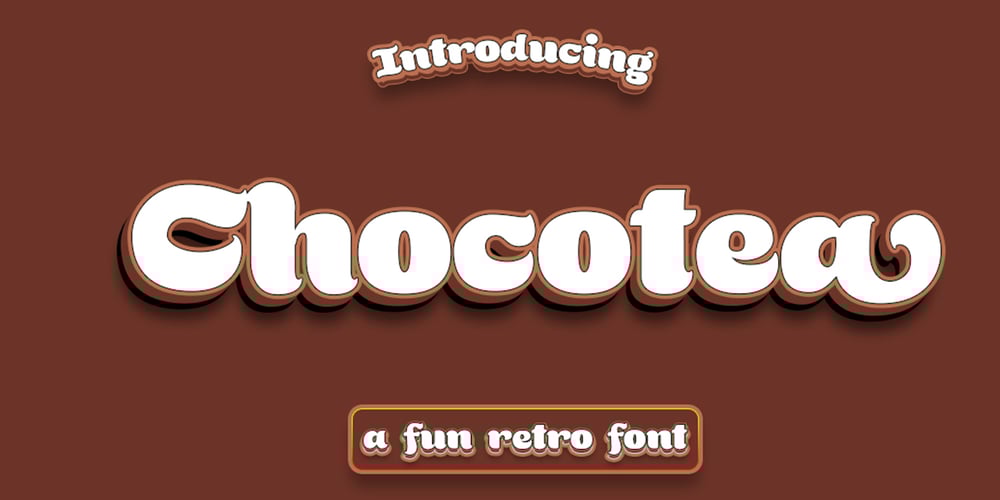
Chocotea Font Family was designed by Muhammad Afif Ersya and published by Mevstory Studio. Chocotea contains 1 styles and family package options. Chocotea – Fun Retro FontYou Can Mix And Match for Your Awesome ProjectThis fonts is ideal for crafting, branding and decorate your any project. This fonts are perfect for wedding invitation or your blog. Also with their help, you can create a logo or beautiful frame for your home. Or just use for your business, book covers, stationery, marketing, magazines and more.